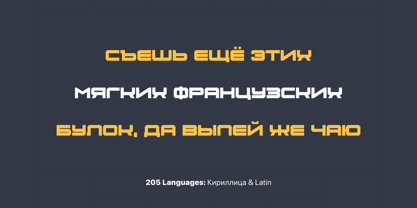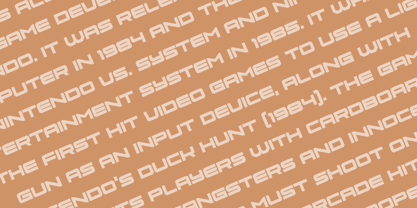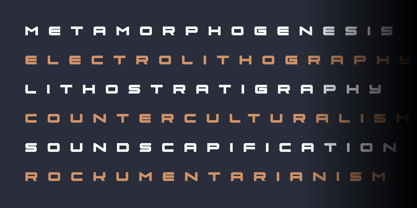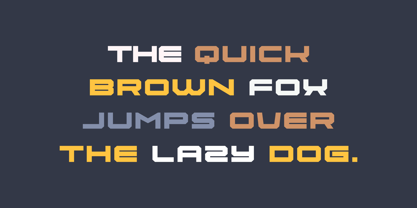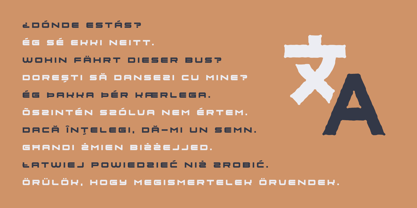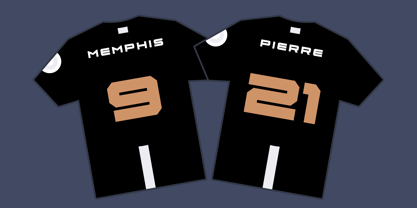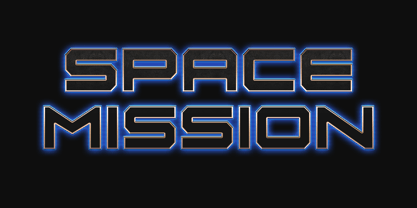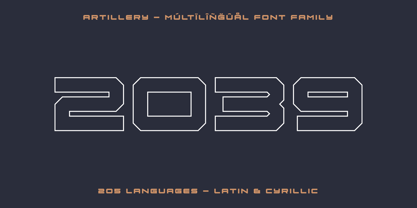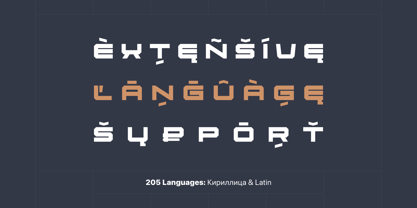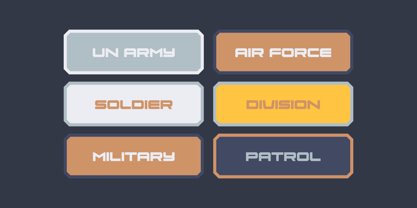
Artillery
by AlperCakici
The Artillery Font Family was designed by Alper Çakıcı and published by AlperCakici. Artillery contains 1 styles. More about this family
Artillery is a modern, versatile font with excellent kerning, making it ideal for both digital and print use. It features full support for the Cyrillic language, allowing for seamless multilingual communication. Artillery's unique design combines classic proportions with a contemporary feel, making it stand out from other same categories fonts.
Designers: Alper Çakıcı
Foundry: AlperCakici